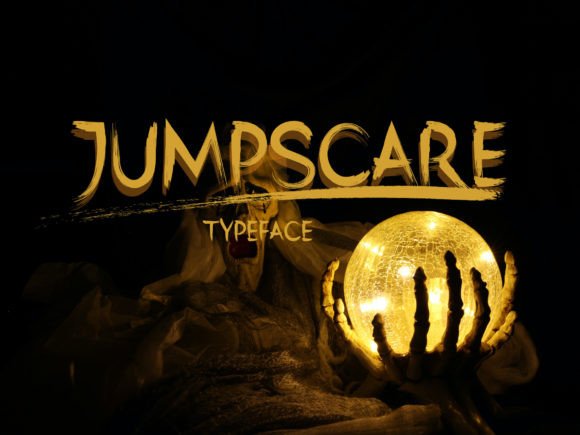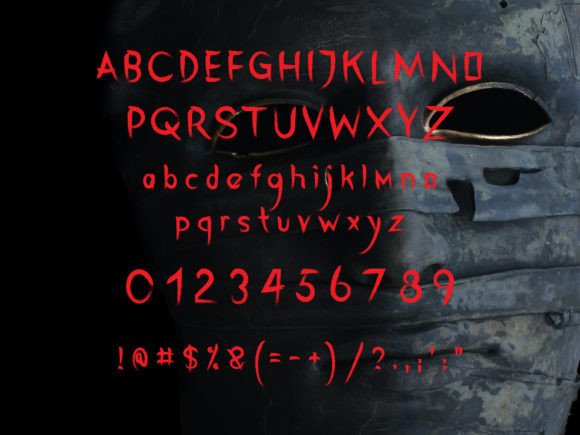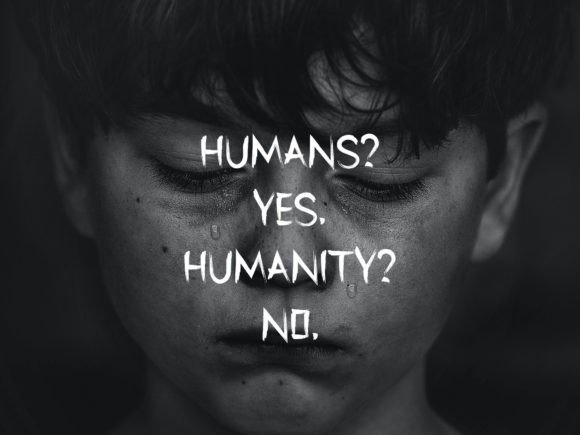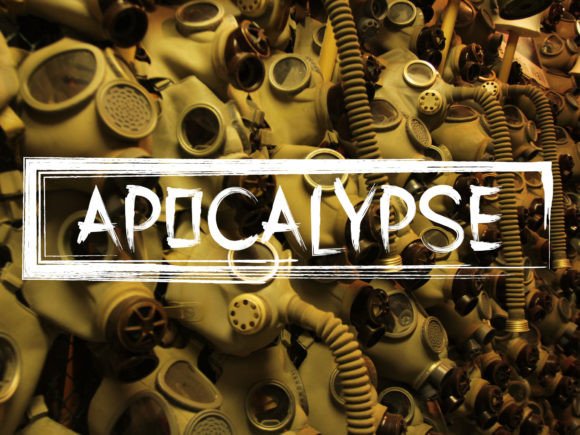
Add a bold and elegant touch to your creative projects with the Jumpscare font. This simple yet stylish dark hand-brush font is designed to bring sophistication and a mysterious vibe to your designs. It is perfect for logos, magazines, social media posts, brochures, and many other creative applications.
The Jumpscare font features smooth, flowing brush strokes that create a unique handwritten appearance. Its dark and elegant style makes your work stand out, while maintaining clarity and readability across different sizes.
You can use the Jumpscare font to design logos that require a strong and memorable presence. It also works well for magazine headlines, social media graphics, and brochure layouts where a touch of style is essential.
Despite its dark and bold appearance, the Jumpscare font remains highly legible. Whether used for large display text or smaller accents, it enhances your designs with elegance and personality.
Using this font will elevate your creative work by adding a sleek and modern hand-brush style. If you want your projects to have a stylish yet mysterious flair, the Jumpscare font is an excellent choice.
In summary, the Jumpscare font is an elegant and versatile hand-brush typeface suitable for various design needs. From logos and magazines to social media and brochures, it delivers a distinct dark aesthetic. Download it today and give your designs a sophisticated edge with Jumpscare.